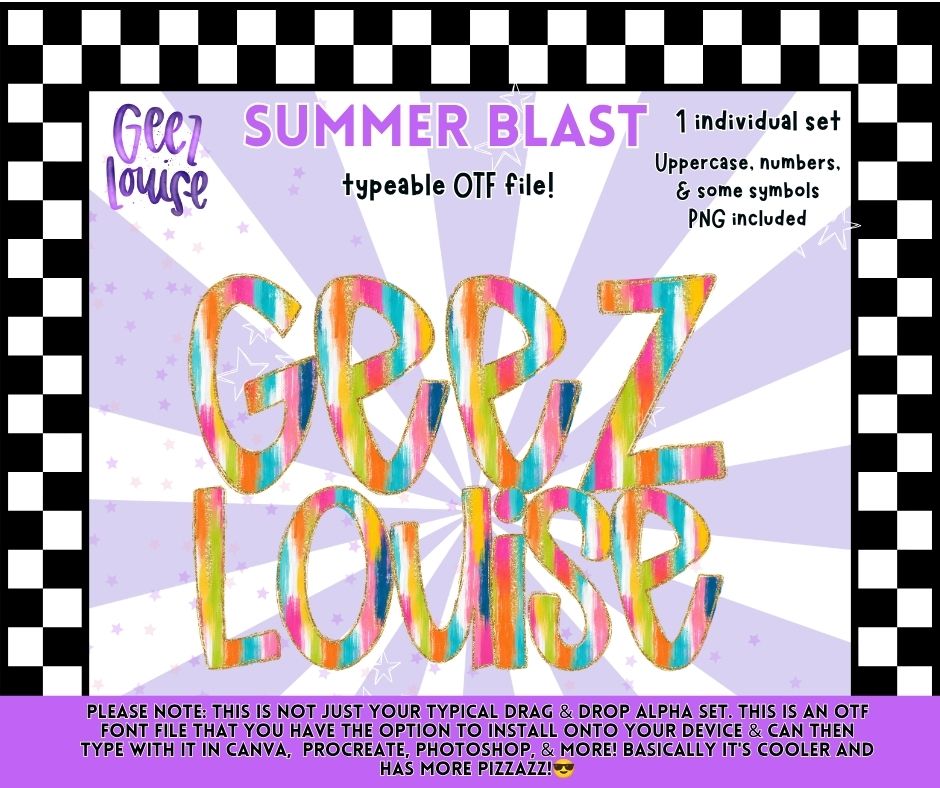
Summer Blast OTF Font | Bright Summer Alphabet | PNG Alpha Included | August 26 Combo Drive & Alpha Drive
Bring bright summer vibes to your projects with the Summer Blast OTF Font! This colorful alphabet features vibrant painted stripes and includes a matching PNG alpha set.